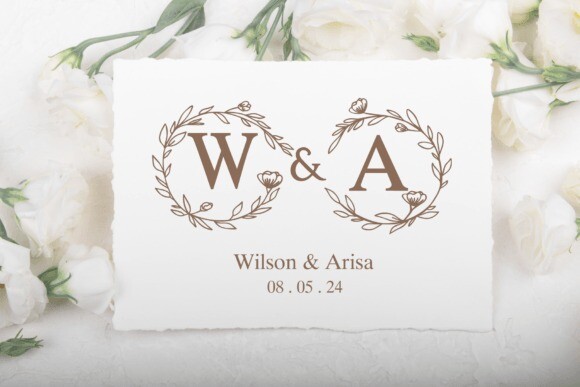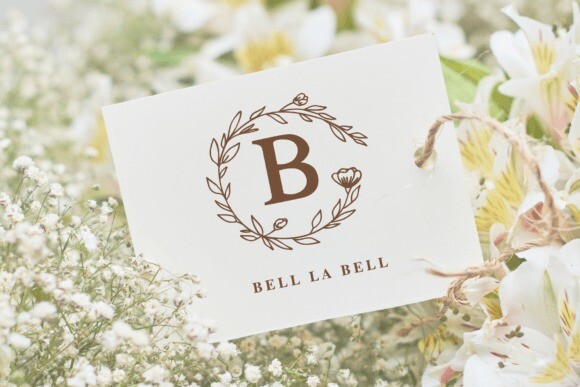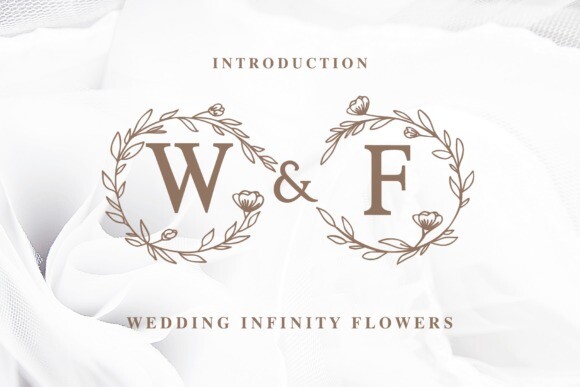
Wedding Infinity Flowers Font
Wedding Infinity Flowers Font is an elegant font designed for special occasions. It features decorative letters inside a beautiful flower round frame, making it perfect for invitations and wedding cards. This font adds a touch of charm and sophistication to any celebration!